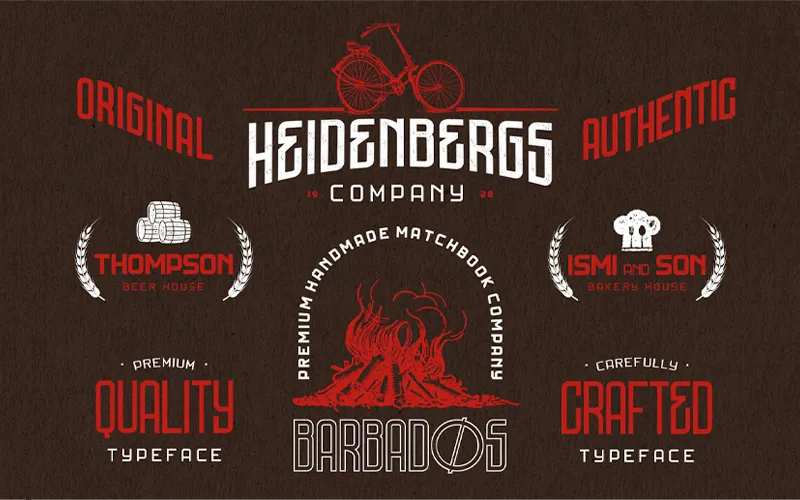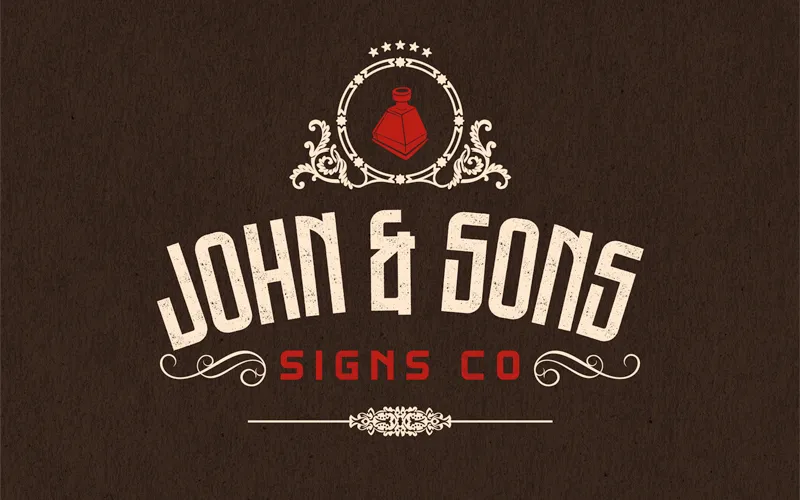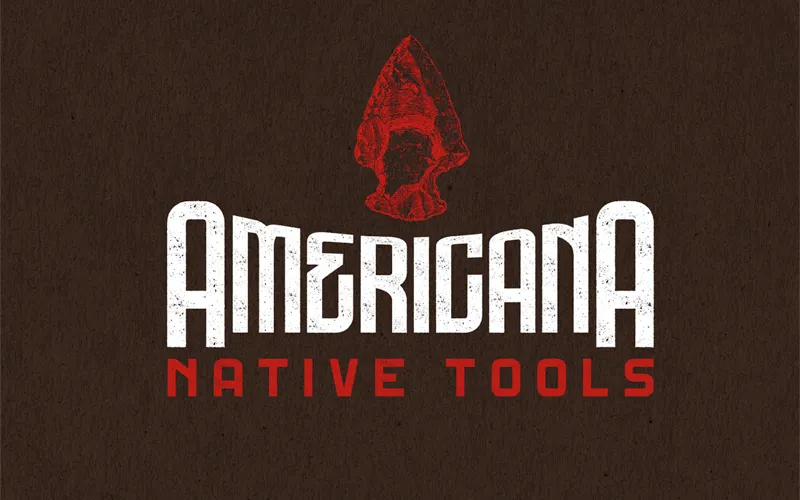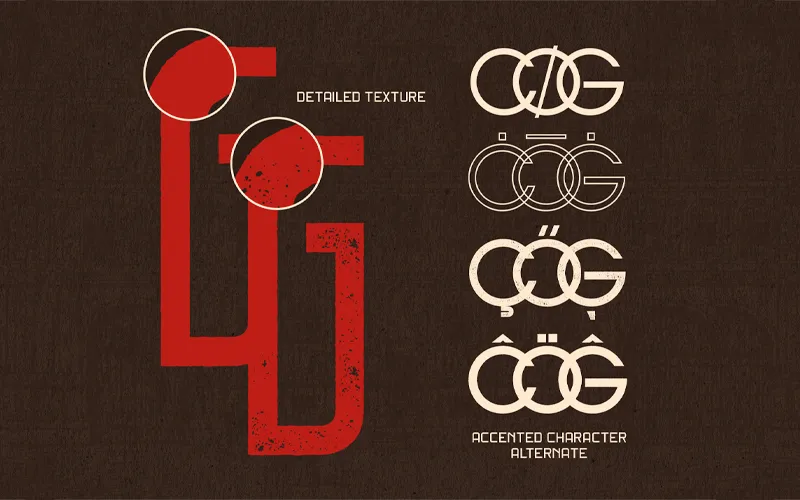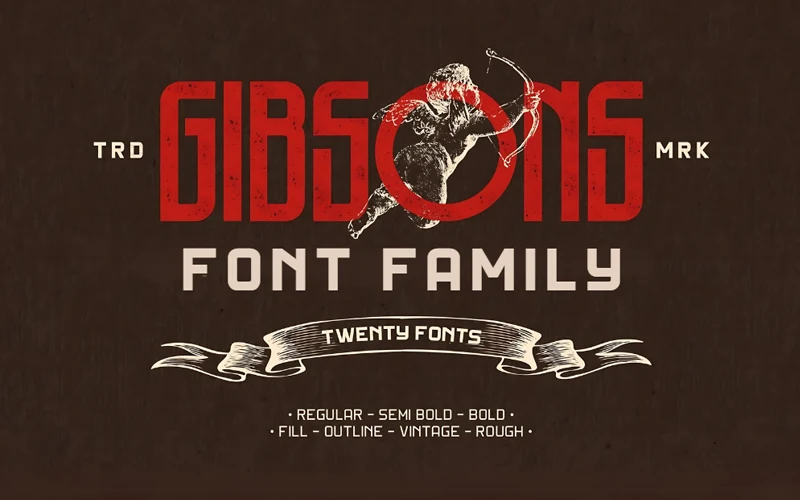
Gibsons Font Family For Stylish Typographical Designs
Step into a world of creativity where typography meets style with the Gibsons Font family.
This family features two font typefaces in three weights – Regular, Semi-bold, and Bold. Each weight has four styles: Fill, Outline, Vintage (Rough Edge), and Rough (Texture).
The Gibson fonts also include alternate characters, allowing you to add a unique touch to your text.
These fonts offer endless design possibilities for branding, advertising, marketing, banners, posters, invitations, packaging, or any type of creation.
They are easy to customize and help make your designs stand out and communicate effectively.
The Gibsons Font Family Includes:
Gibsons 01
- Regular
- Semi-Bold
- Bold
Gibsons 02
- Regular
- Bold
Each font has four styles: Fill, Outline, Vintage (Rough Edge), and Rough (Texture).
Highlights:
- Two Typefaces – Tall & Short
- 20 Stylish Fonts
- 3 Weights – Regular, Semi-bold & Bold
- Each weight has 4 Styles – Fill, Outline, Vintage (Rough Edge) & Rough (Textured)
- Includes Alternate Characters
- Easy To Customize